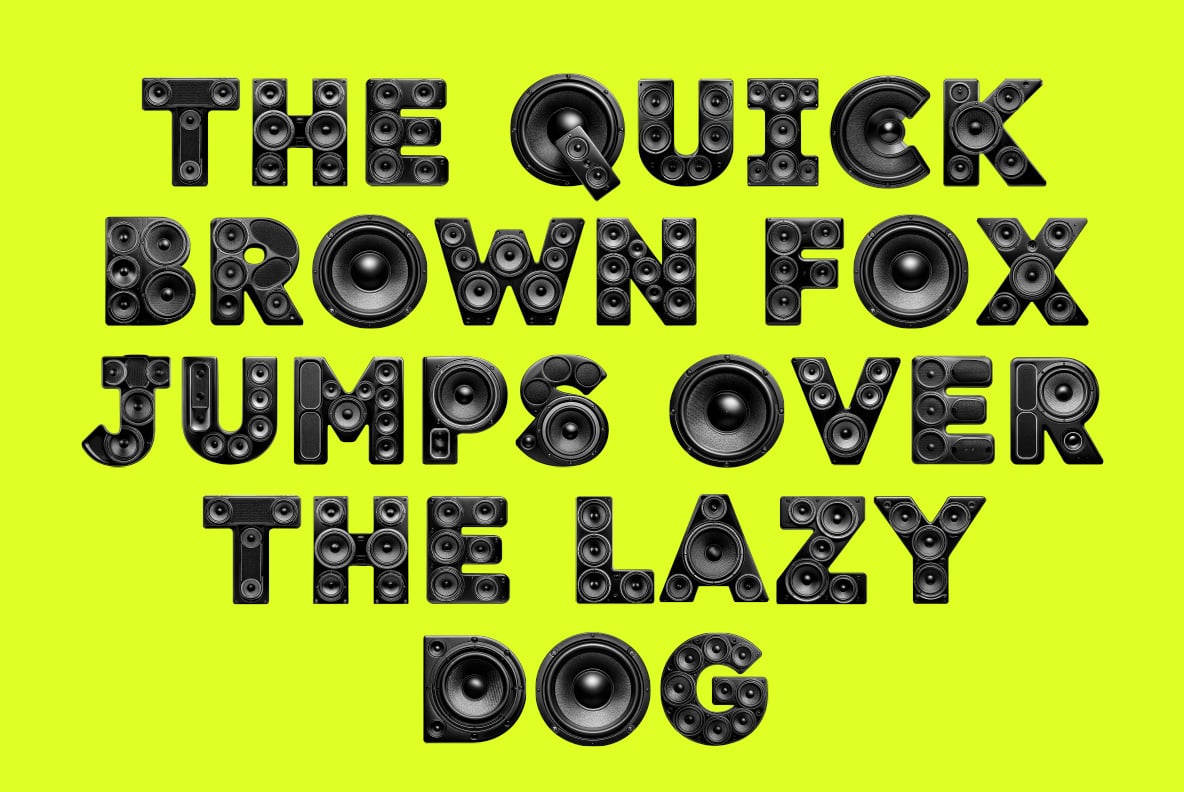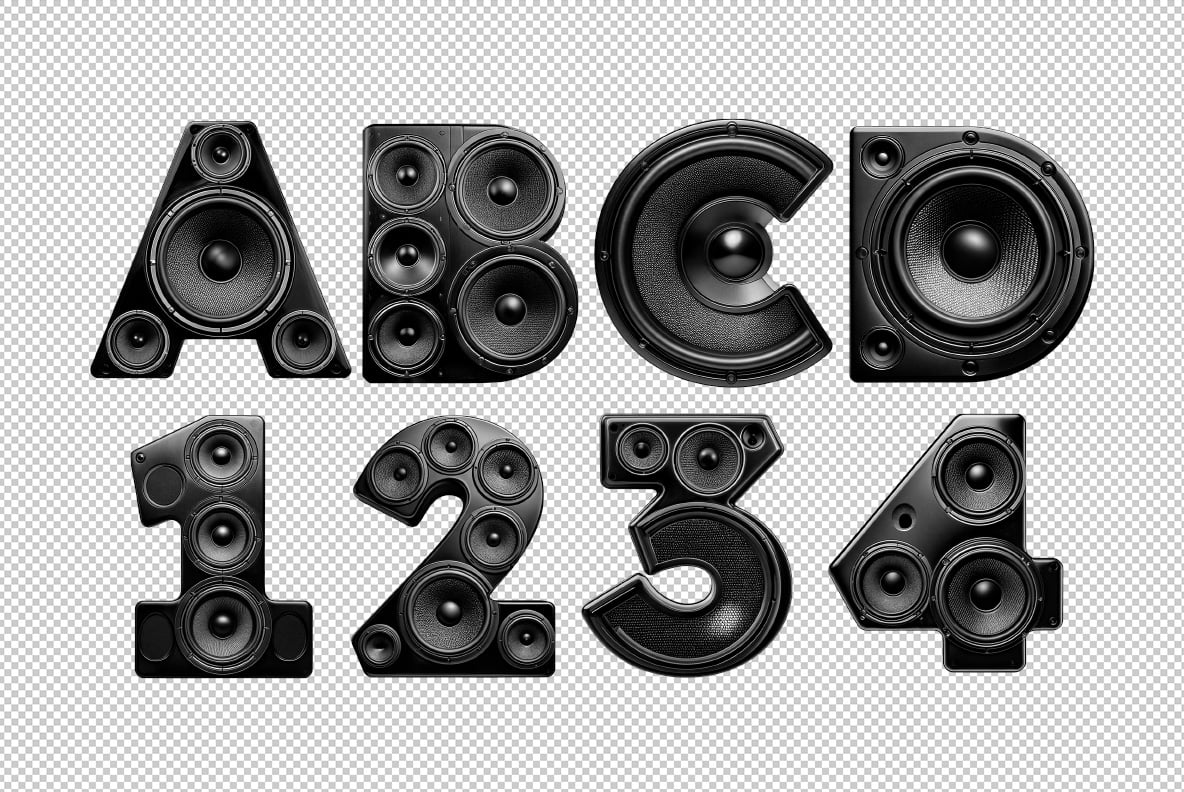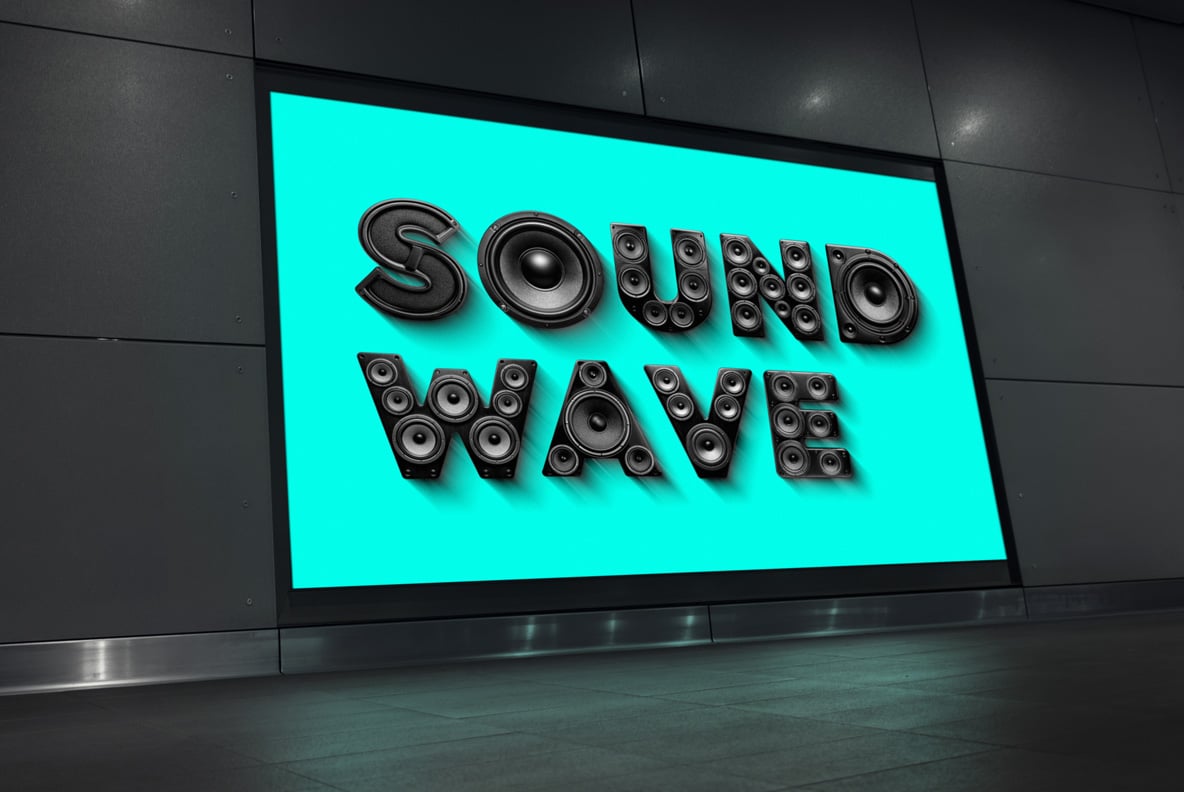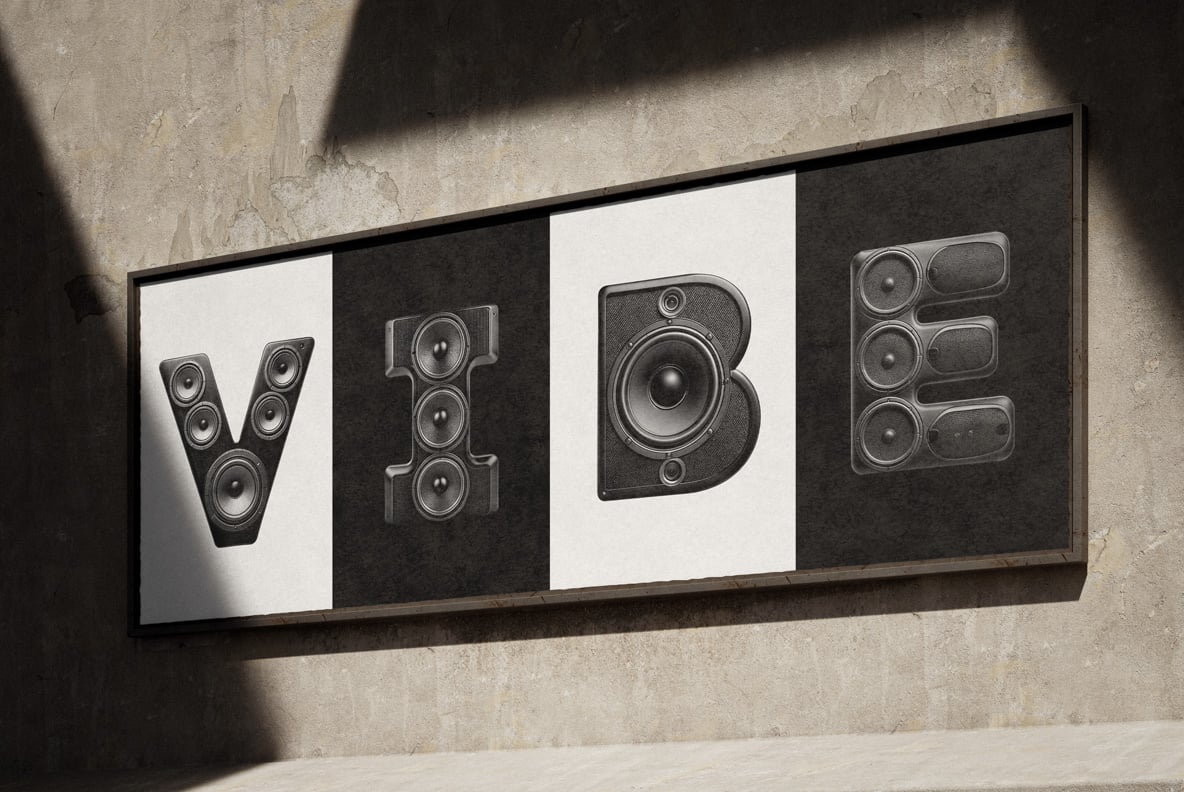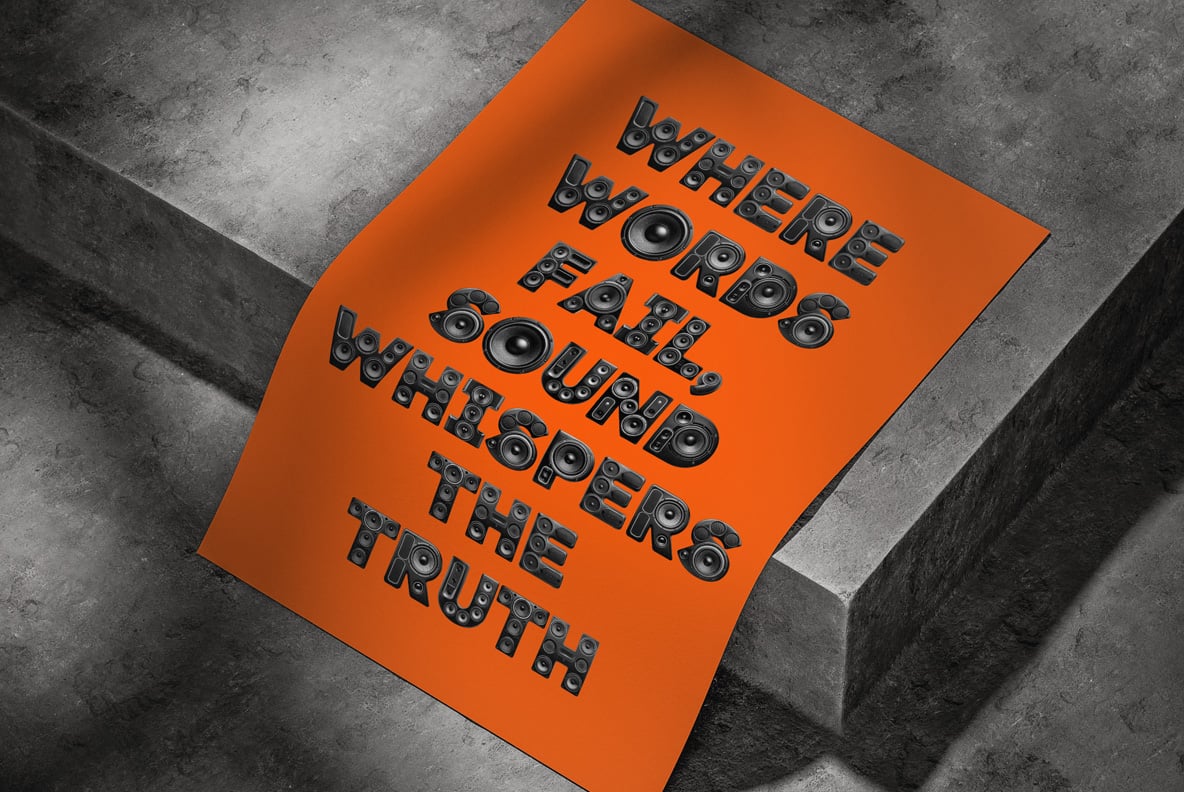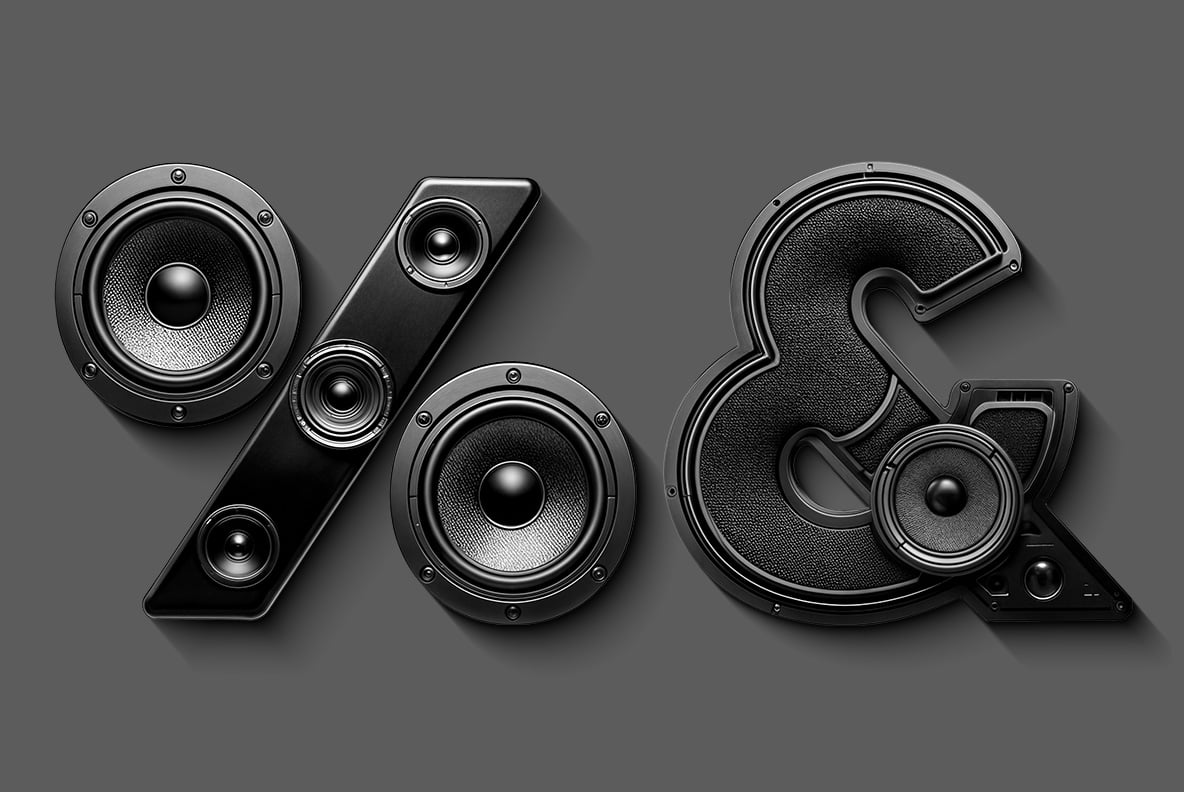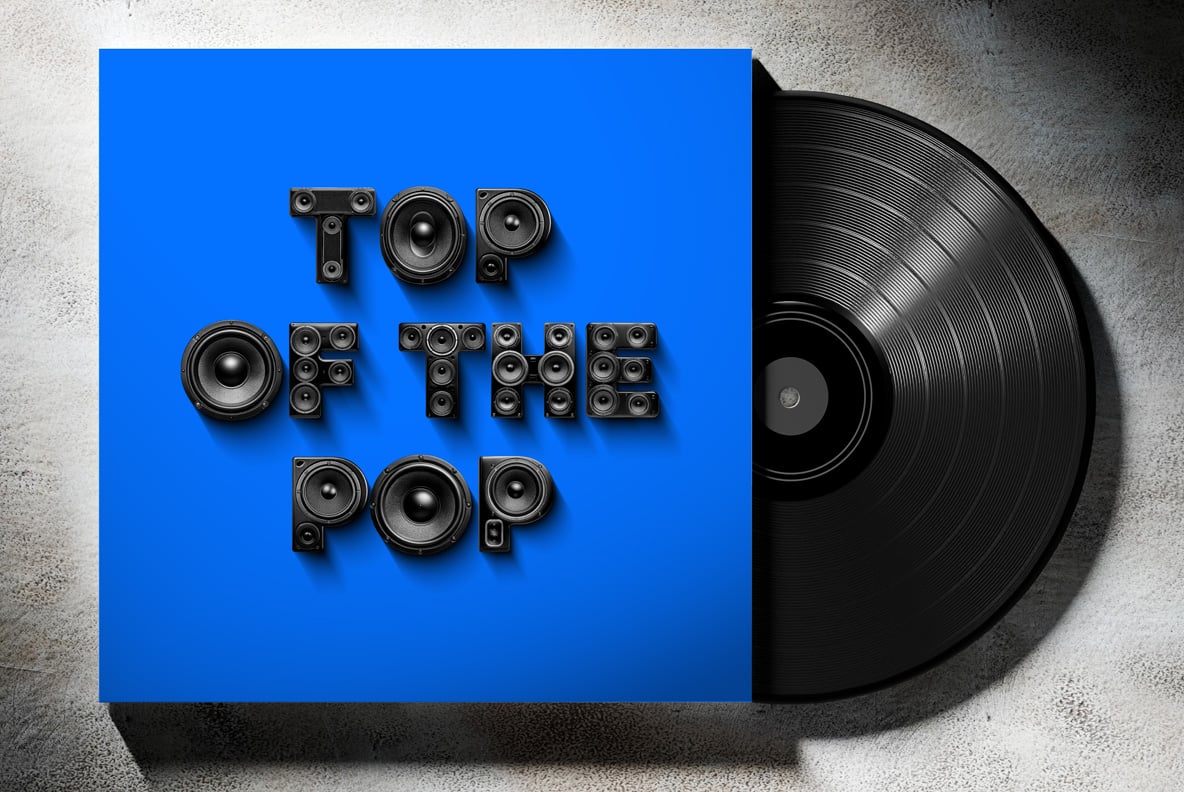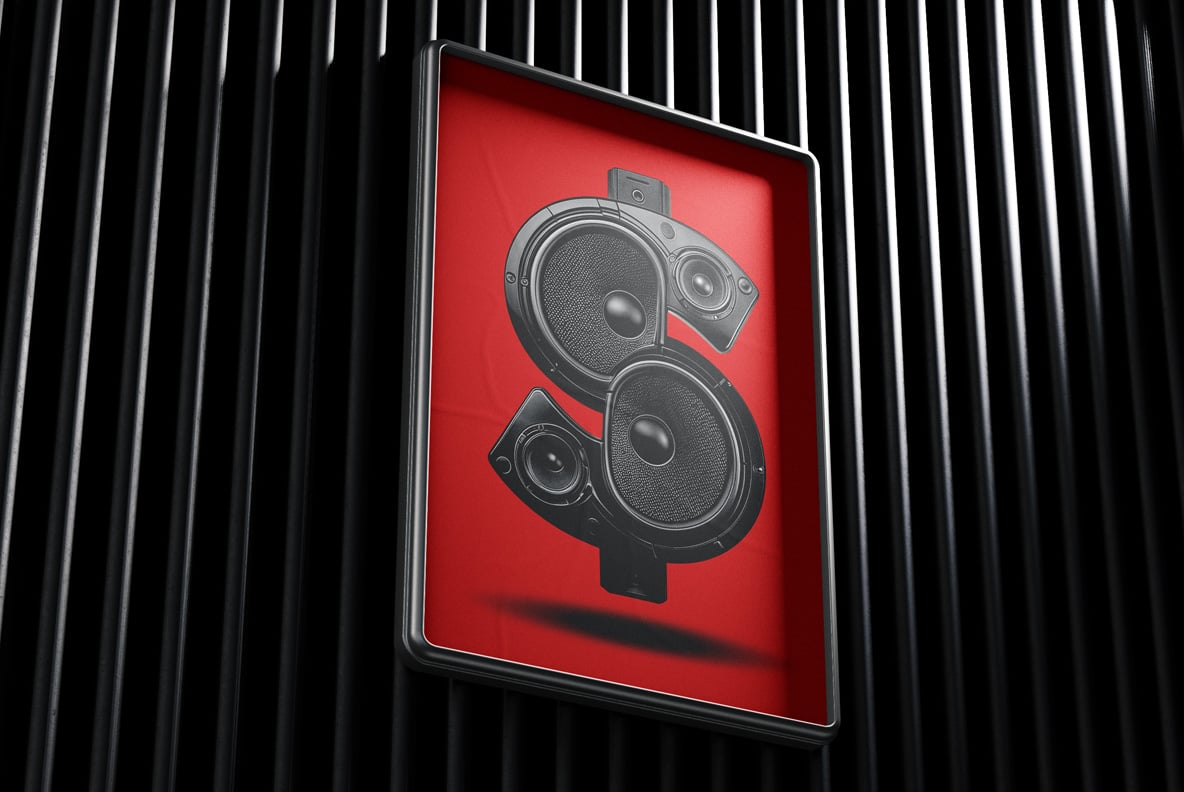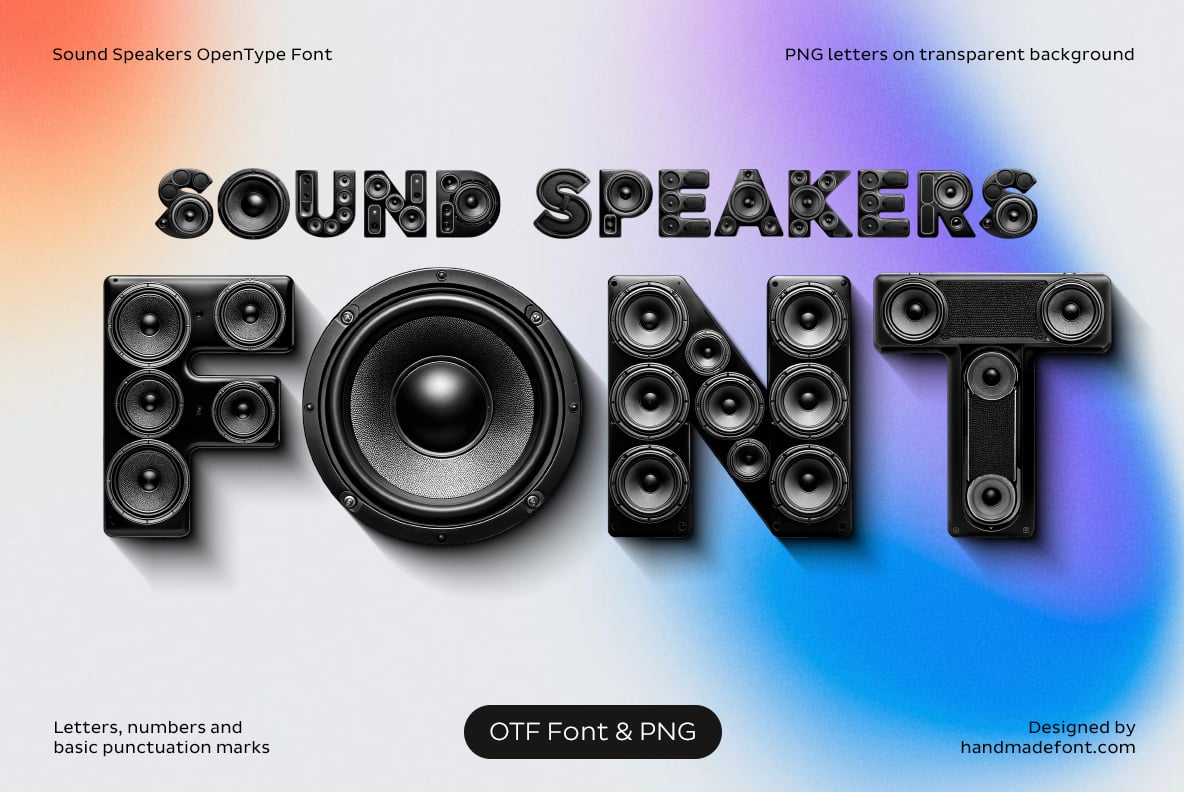
Sound Speakers Font
Sound Speakers Font is a bold, booming typographic creation that quite literally makes some noise. Each letter is crafted from realistic speaker elements—woofers, tweeters, and subwoofers—stacked with precision and pumping with style. Whether you're designing for a music festival, a DJ’s logo, or just want your words to scream “party,” this font turns up the volume on creativity. It’s not just a typeface—it’s a full-blown sonic experience, frozen in graphic form. Warning: may cause spontaneous dancing and uncontrollable head-bobbing. Perfect for album covers, posters, or anything that deserves to be seen and heard. Crank it up and let your typography rock.